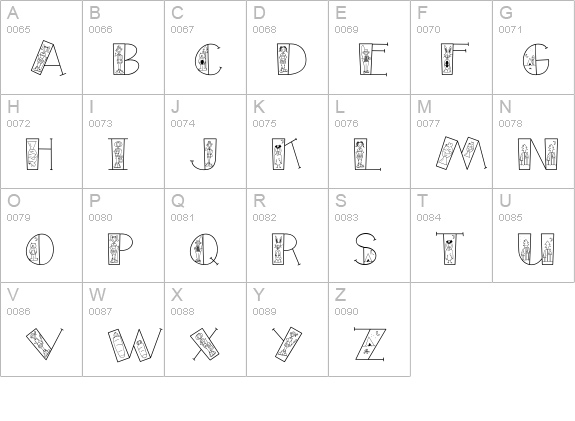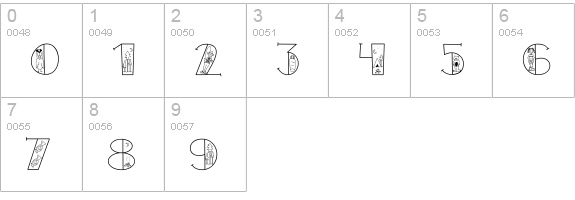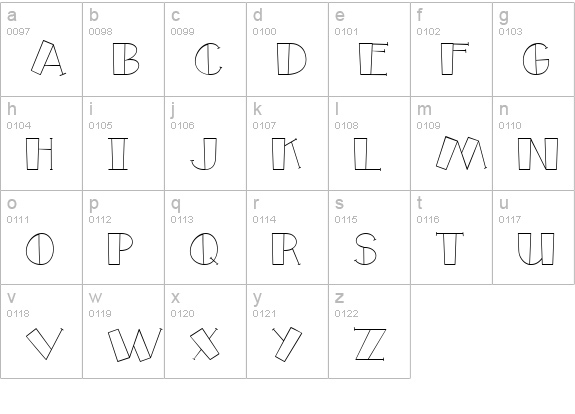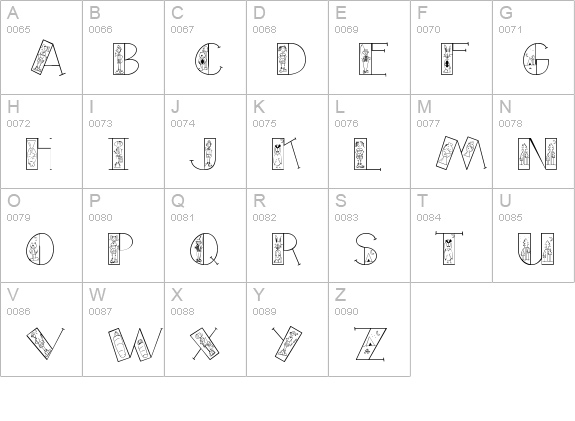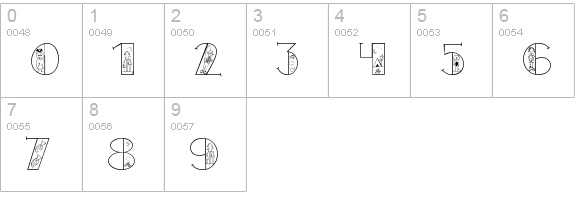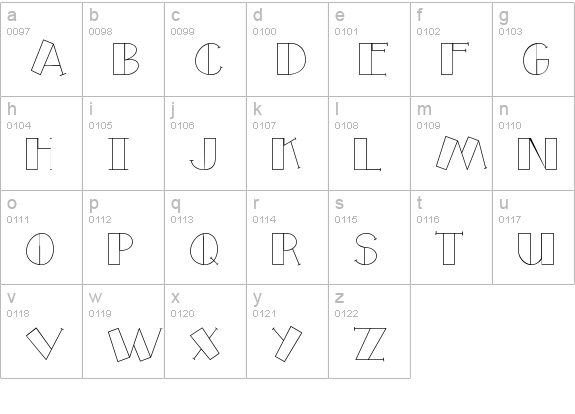
Introducing CK Happy Camper font, a whimsical and charming typeface perfect for adding a touch of fun and playfulness to your designs. This delightful font is inspired by the great outdoors and the joy of camping under the stars. With its quirky letterforms and unique style, CK Happy Camper is sure to bring a smile to your audience. What's even better is that CK Happy Camper font is available for free download at FontsMarket.com! Yes, you read that right - this adorable font can be yours at no cost, making it the perfect choice for budget-conscious designers and creatives looking to add a touch of cheer to their projects. Whether you're working on a greeting card, poster, invitation, or any other creative project, CK Happy Camper font is a fantastic choice that will bring a sense of joy and warmth to your designs. Download it today and let your creativity roam free with this delightful and charming typeface.